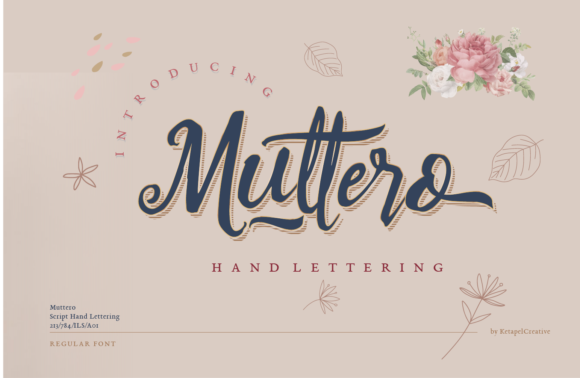
Unleash the beauty of authentic hand-lettering with Muttero Font – a breathtaking script font family that will transform your creative projects into extraordinary masterpieces. Immerse yourself in the splendor of its meticulously crafted characters, each stroke infused with a touch of elegance and individuality.
Muttero's captivating charm lies in its ability to evoke a sense of intimacy and authenticity in every word you write. Its carefully balanced curves and delicate ligatures dance together harmoniously, creating a visual symphony that captivates the senses. Whether you're designing wedding invitations, heartfelt letters, or eye-catching logos, Muttero promises to add a touch of personal flair that will leave a lasting impression.
Let your imagination run wild as you explore the endless possibilities of Muttero. Its versatile nature allows it to seamlessly adapt to a wide spectrum of designs, from whimsical illustrations to sophisticated presentations. It's the perfect choice for those seeking a font that exudes both elegance and playfulness, allowing your creativity to shine through in every project.
With Muttero by your side, you'll unlock a world of creative possibilities. Let your words dance across the page, guided by the graceful strokes of this enchanting script. Elevate your designs, let your personality shine through, and leave a lasting legacy of beauty with every stroke of the pen.